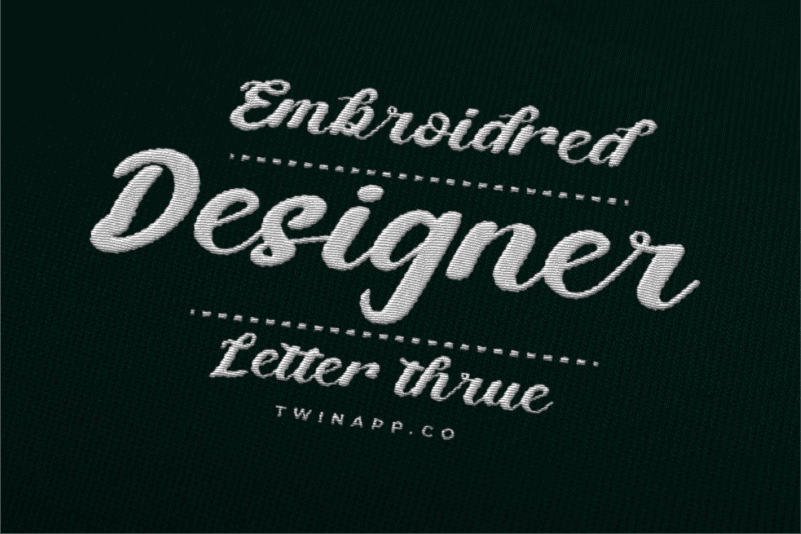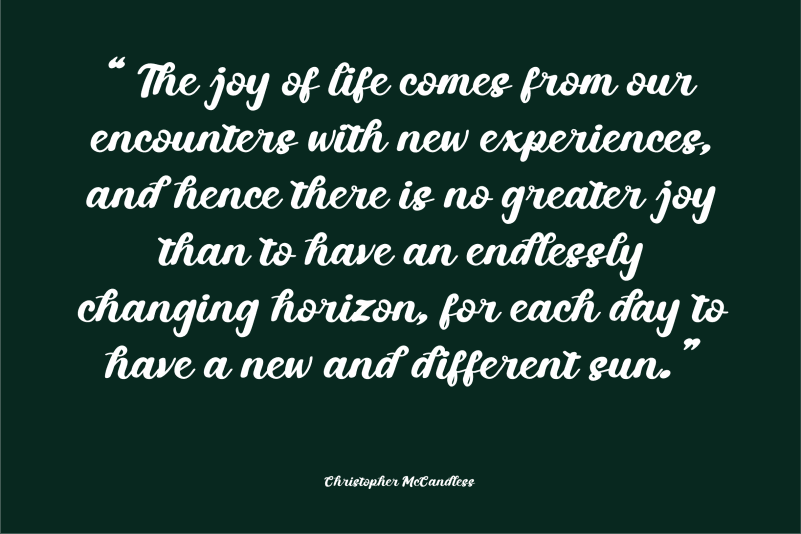
Fabrik Script Font
Fabrik Script Font is an exquisite handwritten typeface, masterfully designed to become a true favorite. It maintains its classy calligraphic influences while feeling contemporary and fresh. Fall in love with it and bring your projects to the highest levels!